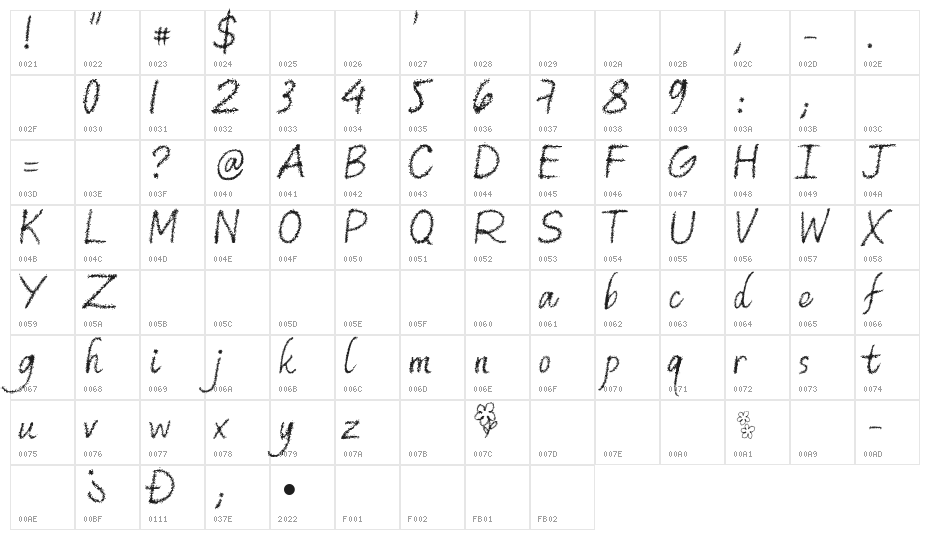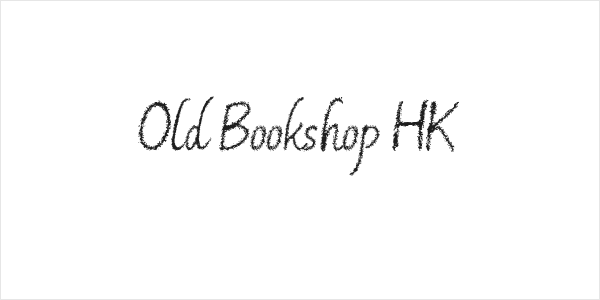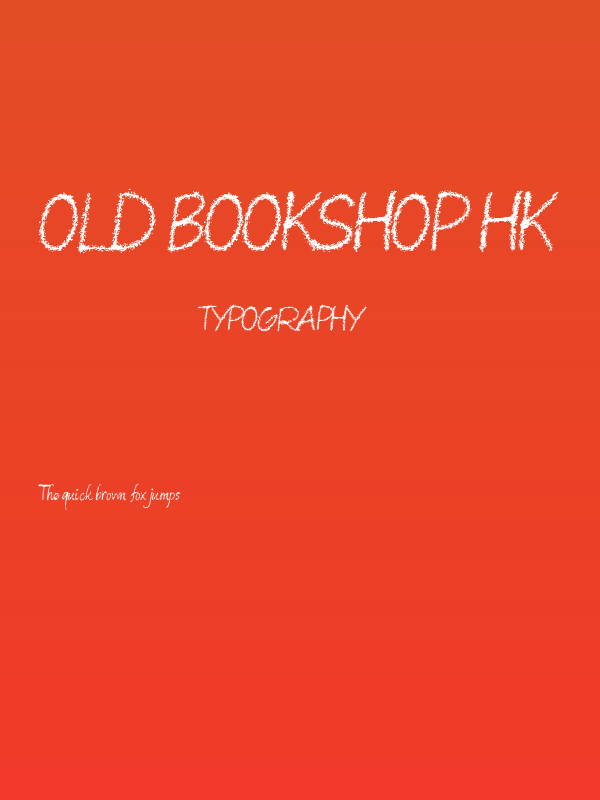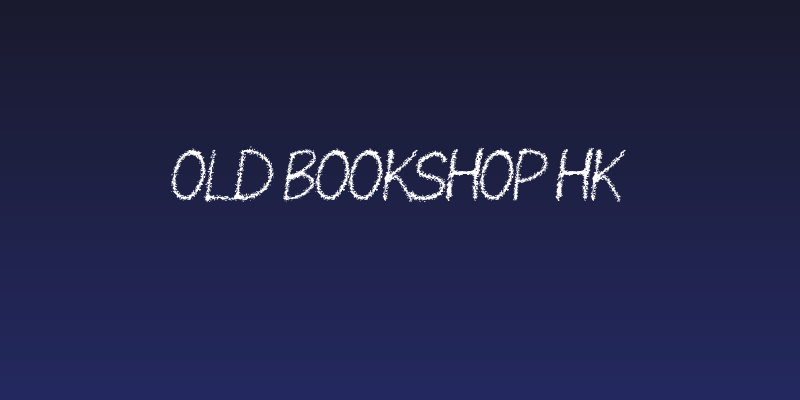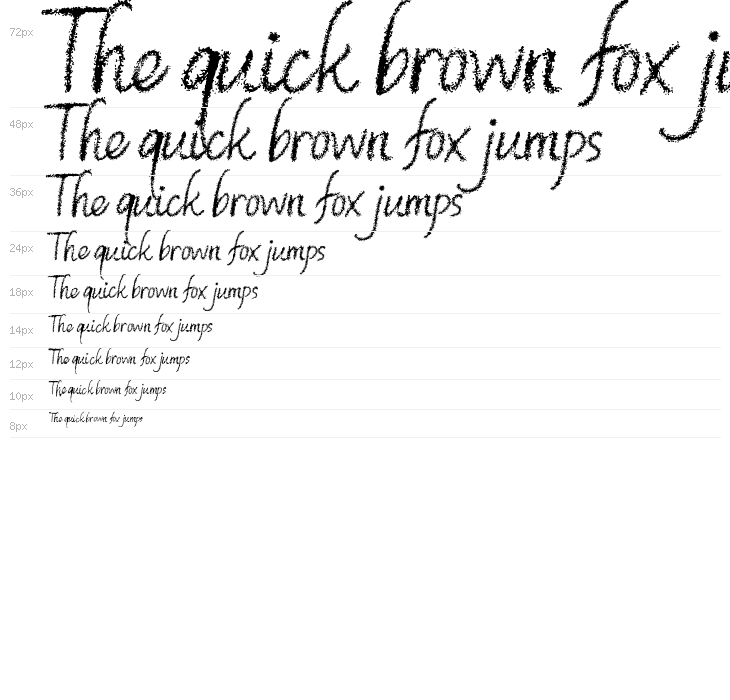
Old Bookshop HK Font
Old Bookshop HK Description
This font exudes a vintage charm with its textured, hand-drawn appearance, reminiscent of chalk or charcoal writing. The uppercase and lowercase letters maintain a consistent style, with a slightly irregular baseline that adds to its rustic appeal. The numbers and special characters follow the same aesthetic, ensuring a cohesive look across all glyphs. The strokes are uneven, giving a sense of authenticity and handcrafted artistry. This font is perfect for projects that require a touch of nostalgia or a handmade feel, such as book covers, posters, or branding for artisanal products.
| Use Case | Headlines, Logos, Decorative text |
| Proposed Projects | Ideal for book covers, vintage posters, artisanal branding, and creative invitations. |